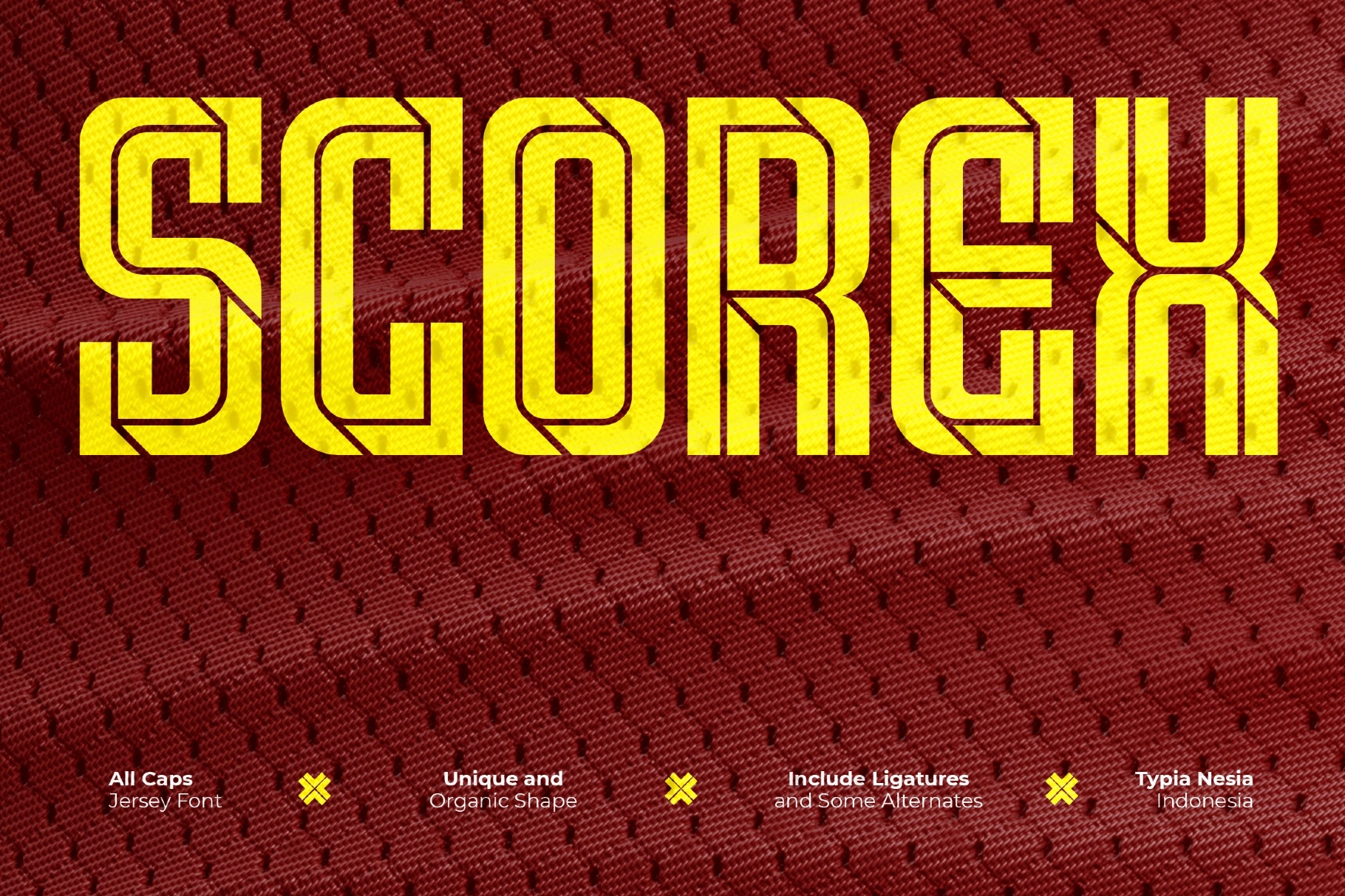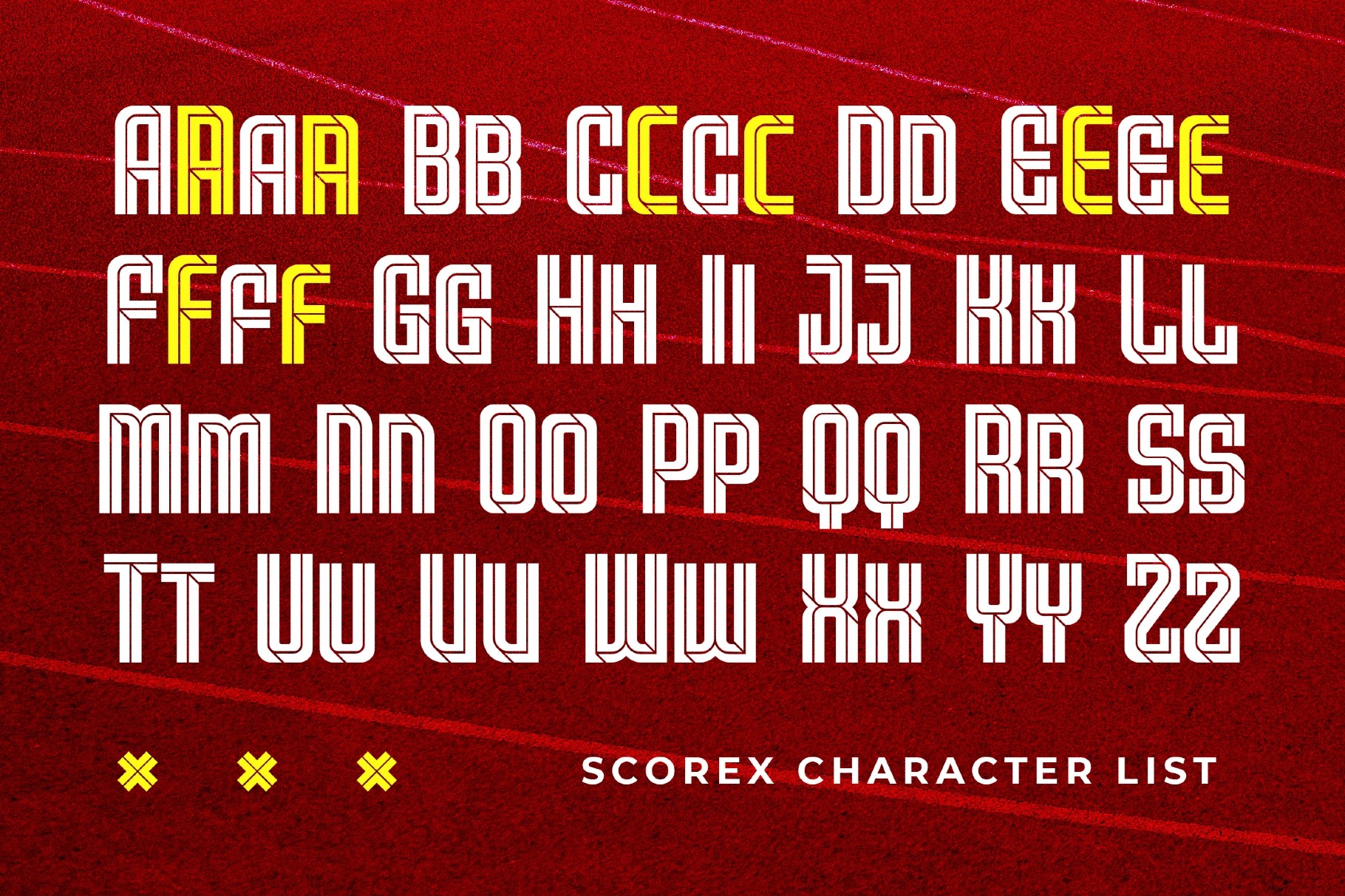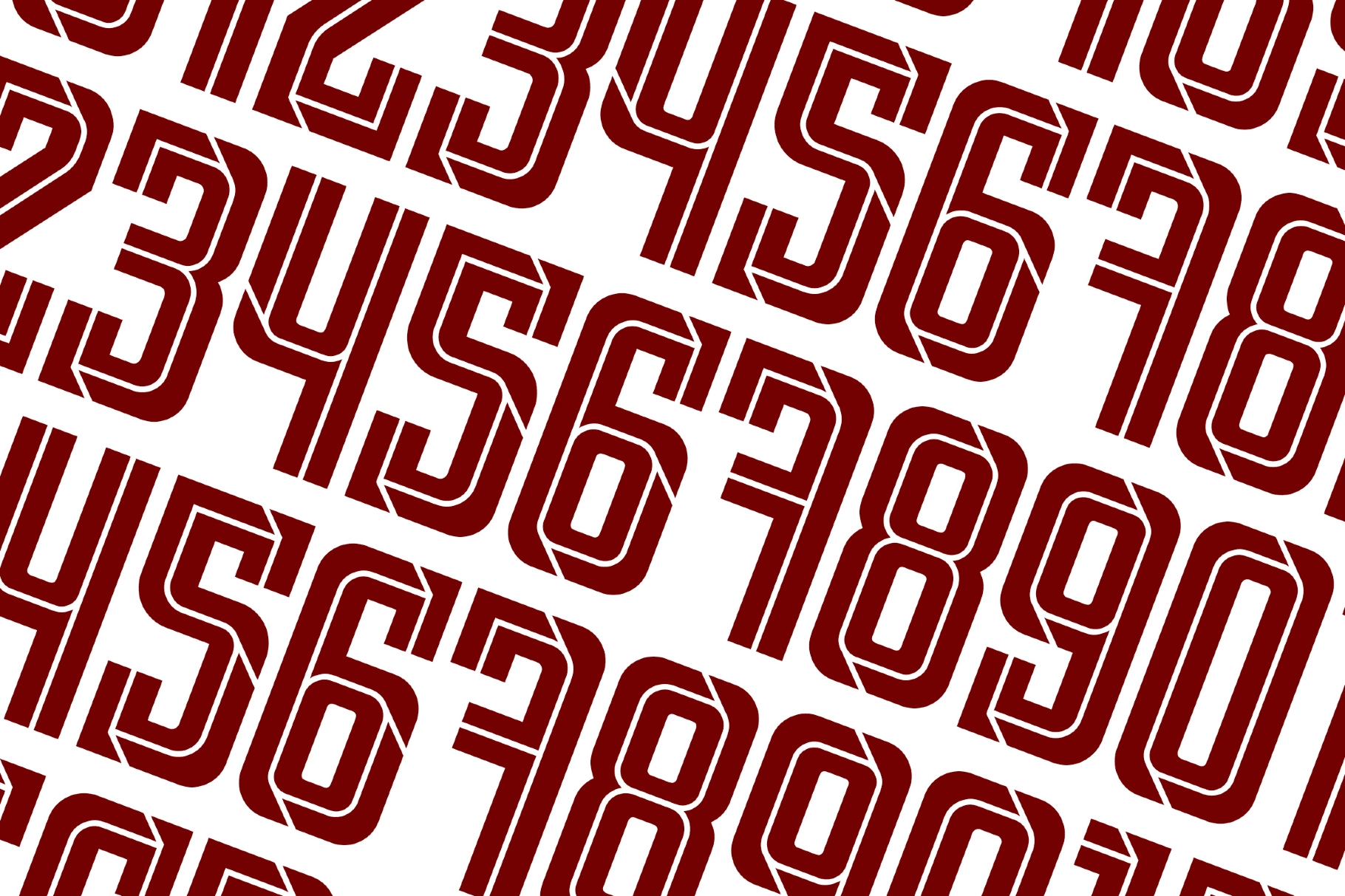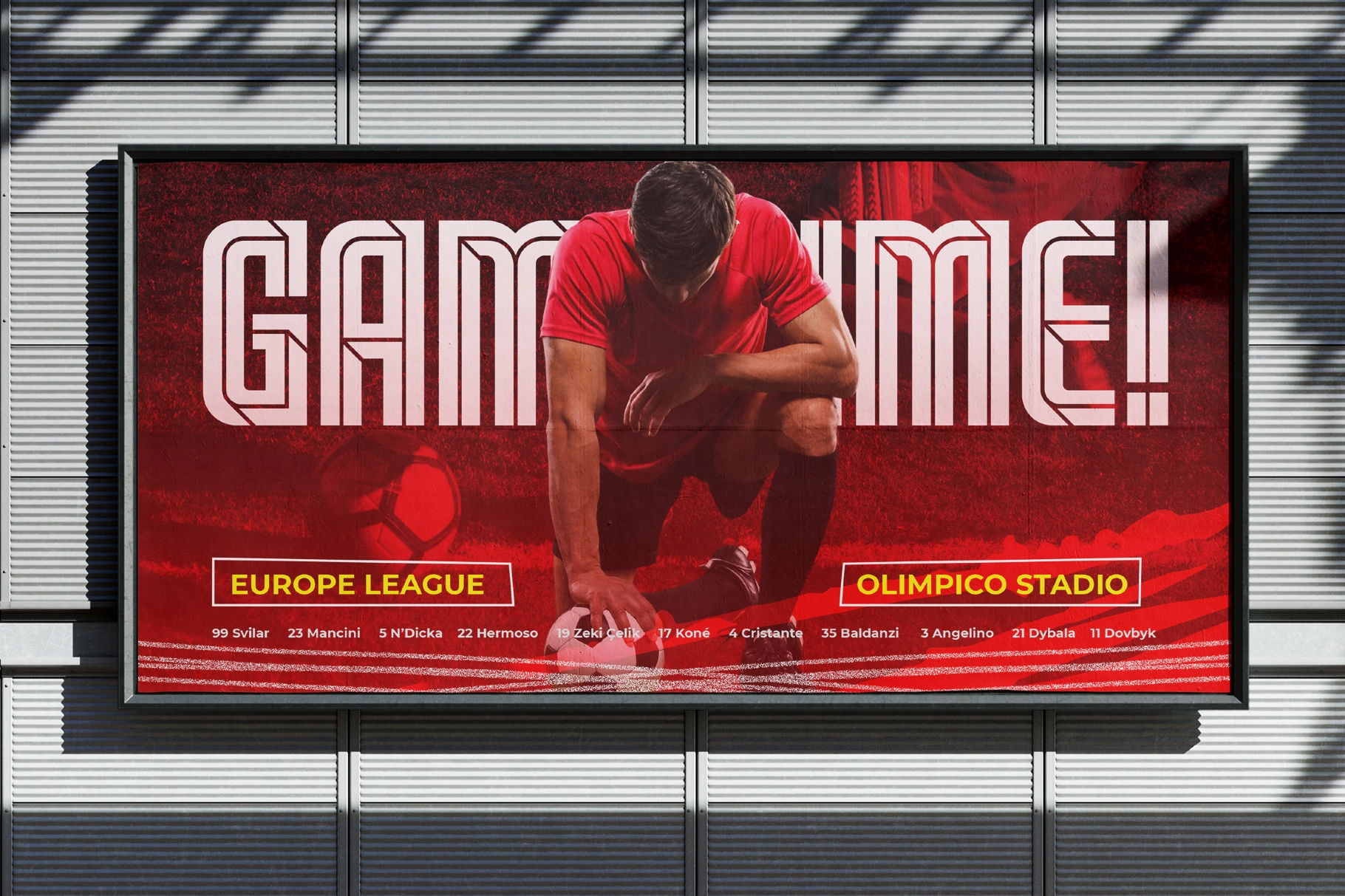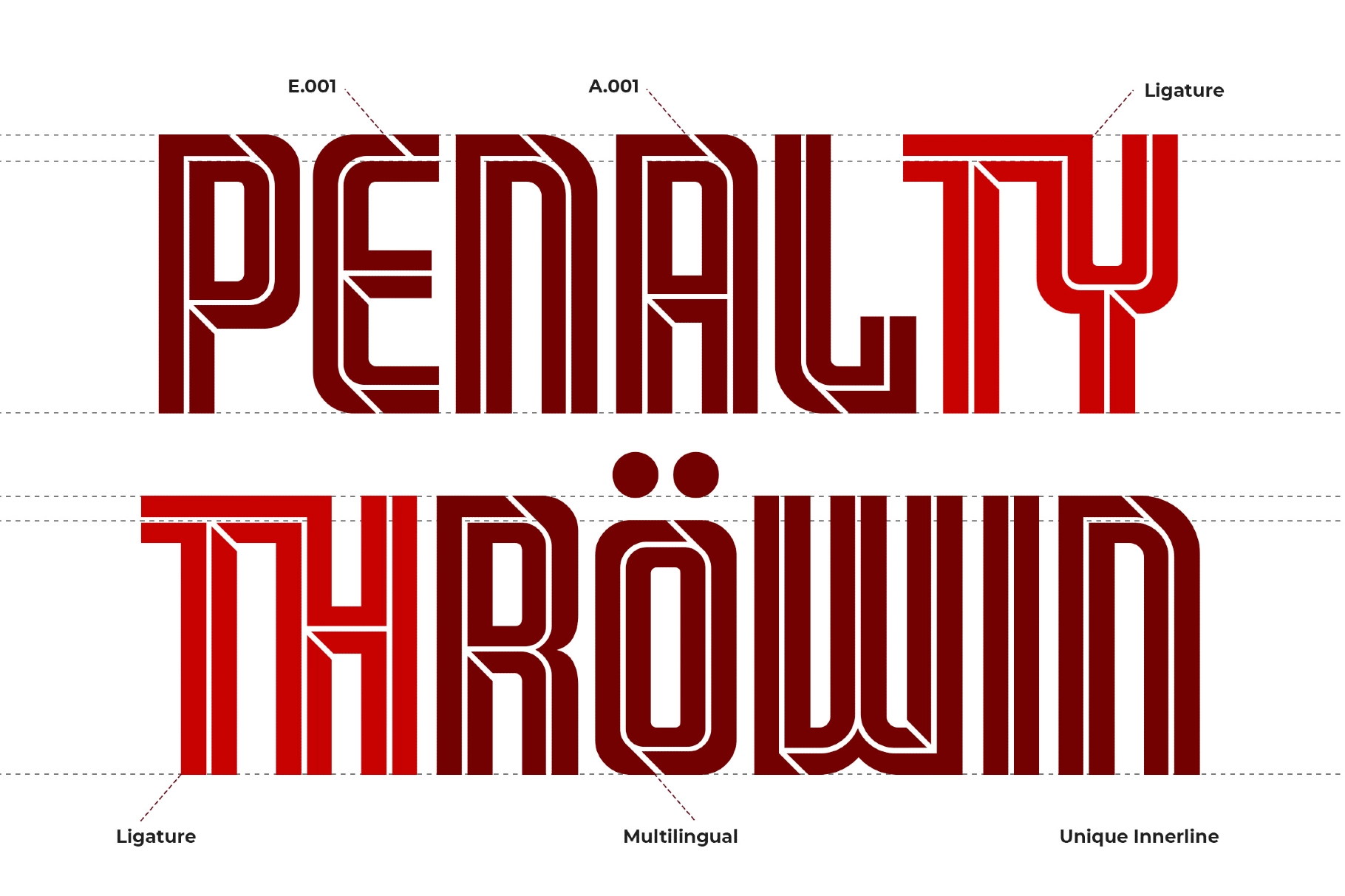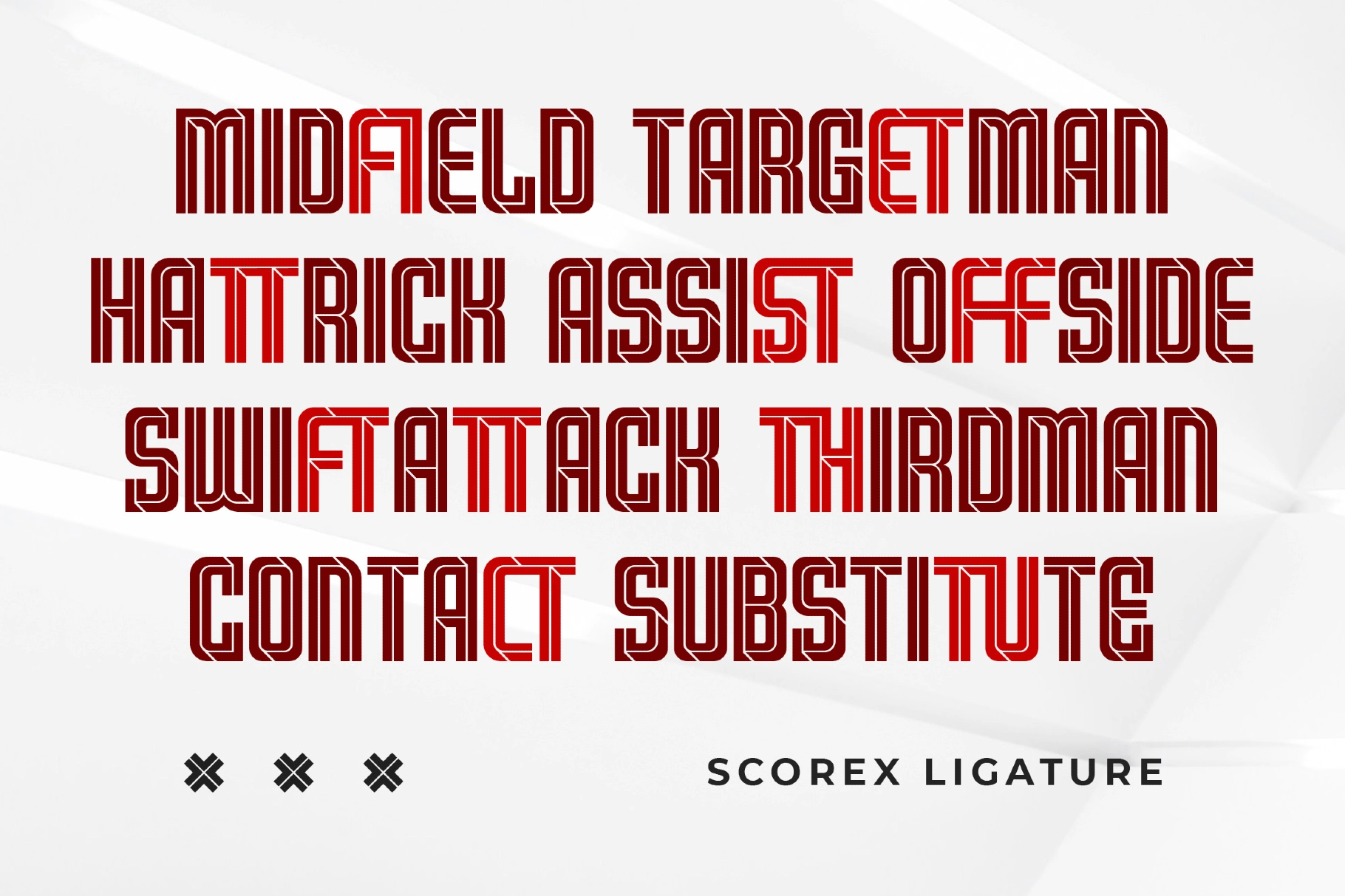
Scorex - Numberset / Nameset Sport Jersey Font
Scorex
Scorex is a striking modern condensed jersey sport font, crafted for projects that demand speed, energy, and strong visual presence. Its tall, bold letters and tight structure offer a pronounced look, accentuated by unique stencil-cut detailing. Scorex delivers reliable performance for sporty branding, offering professional-quality nameset and numberset typography ideal for jerseys and team logos.
Key Features:
- Bold and exceptionally tall condensed letterforms
- Optimized for compact display and strong headlines
- Professional nameset and numberset for sports branding
- Suitable for games, tech, web, and urban aesthetics